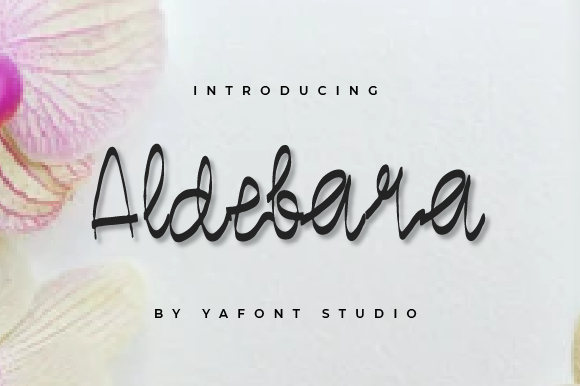
Discover the Unique Charm of Aldebara Font: Elevate Your Designs with a Quirky Handwritten Style
In the world of typography, fonts play a crucial role in bringing creative ideas to life. Whether you’re a designer, crafter, or simply someone who loves to dabble in DIY projects, finding the right font can make all the difference. If you’re looking for a font that adds a touch of personality and whimsy to your work, look no further than Aldebara Font. This quirky handwritten font is sure to make your designs stand out from the crowd, and in this article, we’ll explore what makes Aldebara so special and how you can use it to elevate your creative projects.
What is Aldebara Font?
Aldebara Font is a unique, handwritten typeface that exudes a sense of playfulness and charm. Its quirky, irregular strokes and carefully crafted letterforms give it a distinctive look that’s both eye-catching and endearing. Whether you’re working on a branding project, crafting a handmade card, or designing a website, Aldebara Font is the perfect choice for anyone looking to add a personal touch to their work.
Key Features of Aldebara Font
- Handwritten Style: Aldebara Font boasts a genuine, handwritten look that’s perfect for creating a personal and relatable feel in your designs.
- Quirky and Unique: The font’s irregular strokes and letterforms give it a quirky charm that’s sure to set your designs apart from the rest.
- Versatile: Aldebara Font can be used for a wide range of projects, from digital designs to print materials, and even handmade crafts.
- Easily Readable: Despite its quirky nature, Aldebara Font remains easily readable, making it perfect for body text as well as headings.
How to Use Aldebara Font in Your Designs
Adding Aldebara Font to your designs is a straightforward process that can instantly elevate your work. Here are a few ideas to get you started:
- Branding and Logos: Use Aldebara Font to create a unique and memorable logo that reflects your brand’s personality.
- Social Media Graphics: Add a touch of whimsy to your social media posts and stories with Aldebara Font.
- Handmade Crafts: Use Aldebara Font to add a personal touch to your handmade cards, journals, and other crafts.
- Web Design: Incorporate Aldebara Font into your website design to create a friendly and approachable atmosphere.
Tips for Getting the Most Out of Aldebara Font
To truly make Aldebara Font shine in your designs, consider the following tips:
- Experiment with Colors: Aldebara Font looks great in a variety of colors, so don’t be afraid to experiment and find the perfect hue to match your design.
- Mix and Match: Combine Aldebara Font with other fonts to create a unique and visually appealing typography scheme.
- Play with Size: Use Aldebara Font in different sizes to create visual hierarchy and add emphasis to key elements in your design.
Aldebara Font is a quirky and charming handwritten font that’s sure to bring a touch of personality to your designs. Whether you’re a designer, crafter, or simply someone who loves to create, Aldebara Font is a versatile and easily readable typeface that can be used in a wide range of projects. By incorporating Aldebara Font into your work, you’ll be able to create unique and eye-catching designs that stand out from the crowd. So why wait? Add Aldebara Font to your creative toolkit today and discover the difference it can make!